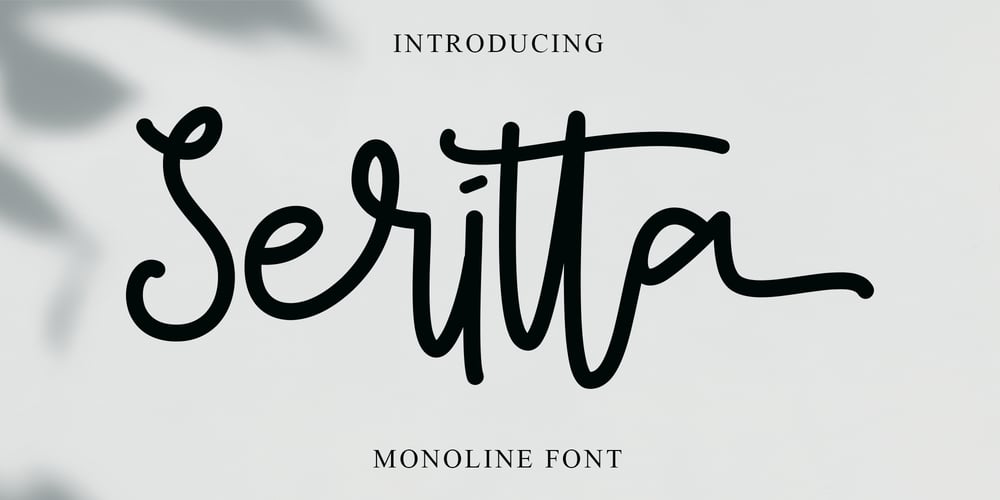
Seritta Font Family was designed by Endri Sulistyawan and published by Rashatype. Seritta contains 2 styles and family package options. Seritta is a sweet and friendly handwritten font. Its natural and unique style makes it incredibly fitting to a large pool of designs. This font is PUA encoded which means you can access all glyphs and swashes with ease!